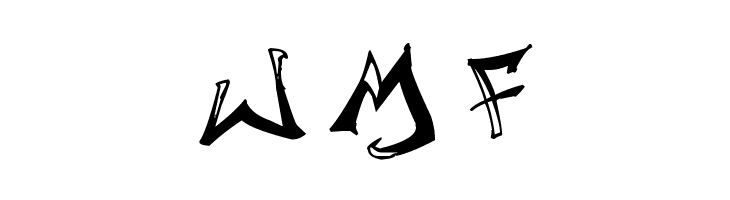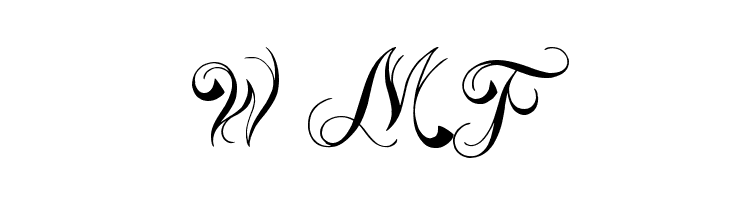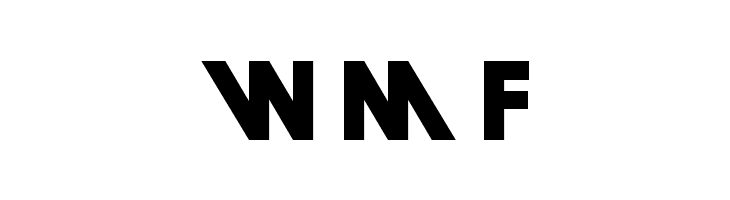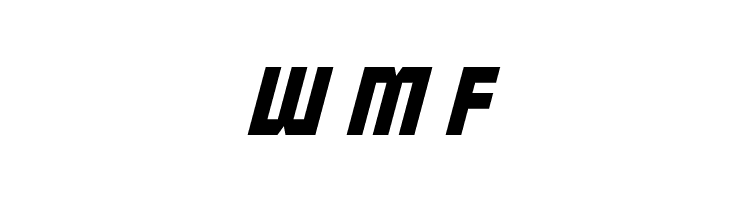
• Raptors Italic
( Darrell Flood )
A bold, italic, and angular font with a futuristic look.
• Raslani Hip Hop
• Raslani Horrorz
• Raslani the Pharaoh
• Raubtier
( Nihilschiz - nihilschiz.sheezyart.com )
A bold and intricate Blackletter font with dramatic serifs and ornate details.
• RaveTime
A bold, hand-drawn font with textured, playful characters.
• Rayman
( zodiakcorporation.wordpress.com/ )
A bold, playful font with dynamic curves and a whimsical, hand-drawn style.
• Rayman Adventures
( Michael Segade - zodiakcorporation.wordpress.com/ )
A playful, bold font with irregular strokes and a hand-drawn appearance.
• Razor Keen
• Reach Story
A playful, hand-drawn font with rounded, bold characters and a friendly vibe.
• Ready Black
An elegant script font with intricate swashes and decorative elements.
• RealMadrid2011-2012
• ReasonableSpeculation
A dynamic, cursive script font with elegant, sweeping strokes and high contrast.
• Red Maroon
( Fonts by Vztype Studio )
• Rede Globo Bold
• Rellanic
An elegant, flowing script with intricate, decorative calligraphy.
• Rellanic Bold Italic
A bold, italicized calligraphic font with flowing, cursive strokes.
• Remedy
• Republic Personal Use Only
A dynamic and elegant script font with bold, flowing letterforms.
• ReservoirInk
( - www.facebook.com/NikoCabal )
An artistic and whimsical font with gothic-inspired swirls and curves.
• Resillia